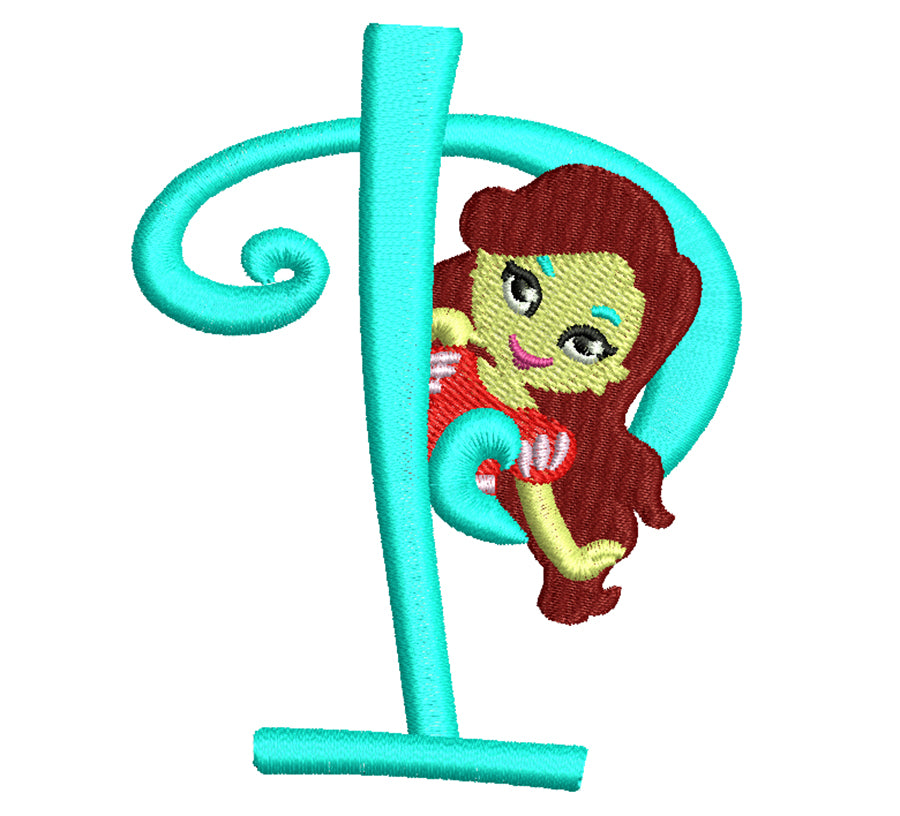
Princess embroidery font for baby girl. Cute embroidery alphabet with princess for cute baby. BX format
Princess embroidery font
This font comes with letters in 3 sizes, A-Z (Upper case)